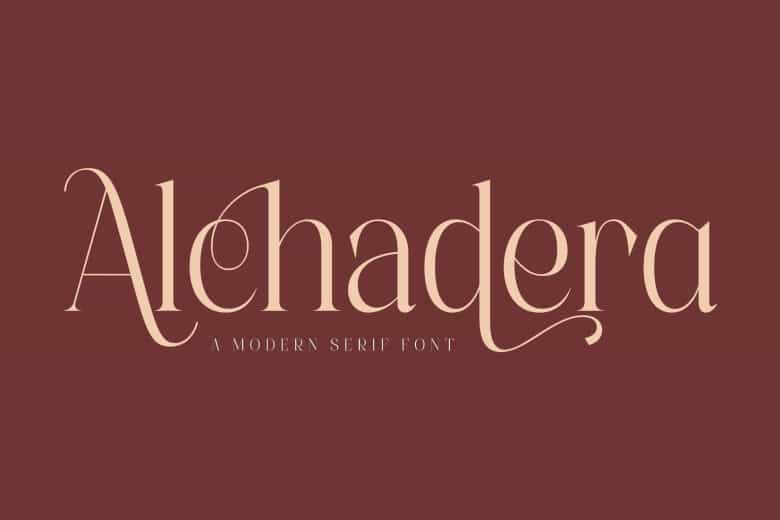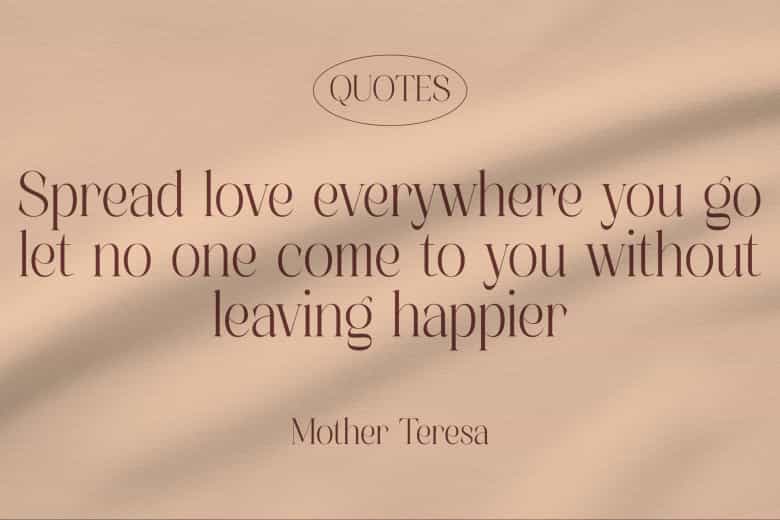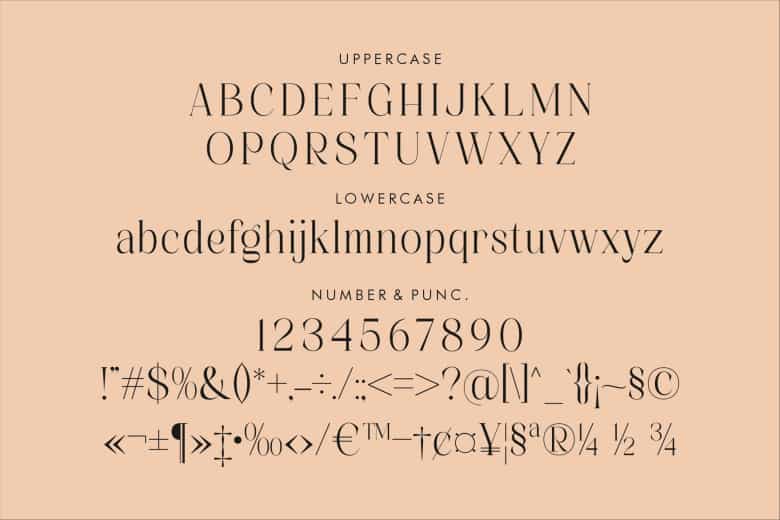
Alchadera is an elegant and contemporary serif font with distinctive style and appearance, making it perfect for use in sophisticated logos, movie or book titles, fashion label clothing labels, magazines letters quotes and much more. This typeface also makes for beautiful displays in movie theatres!